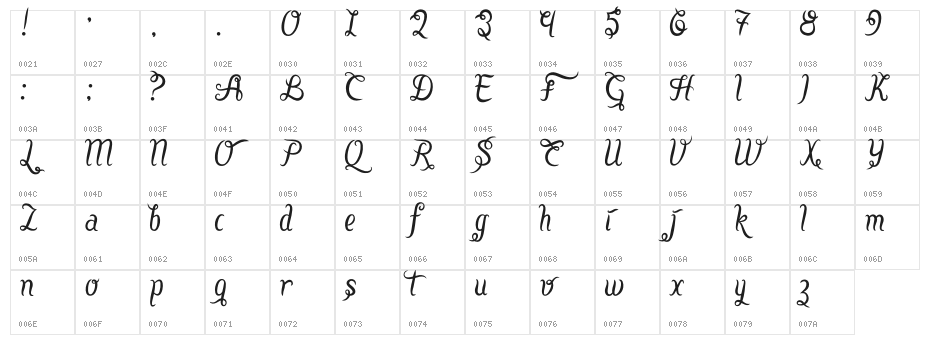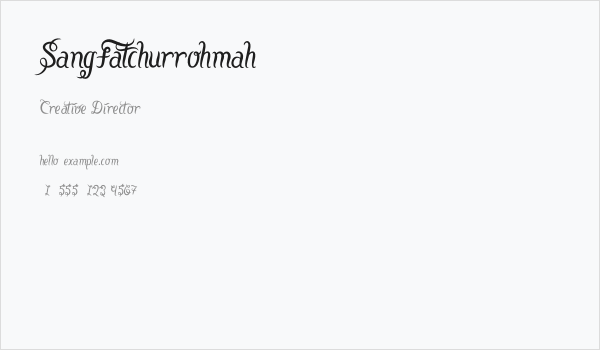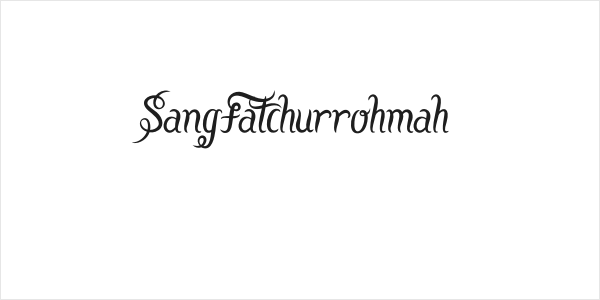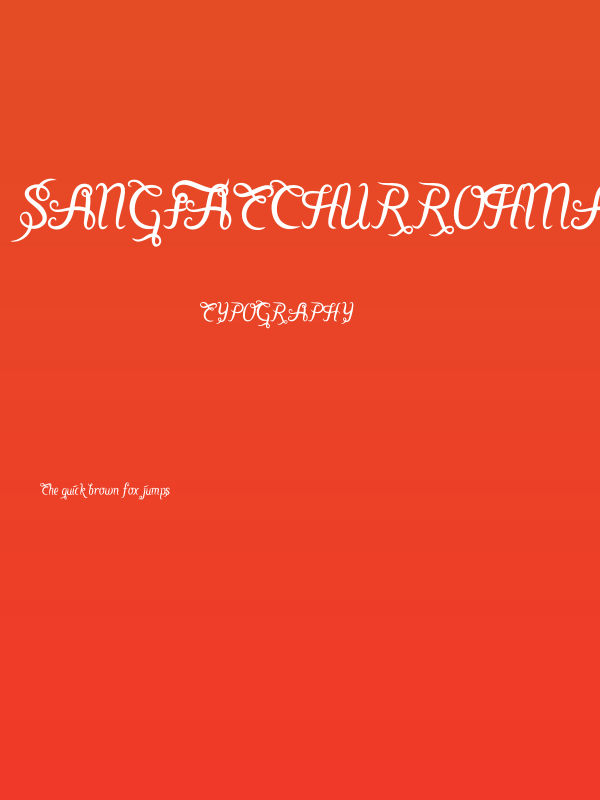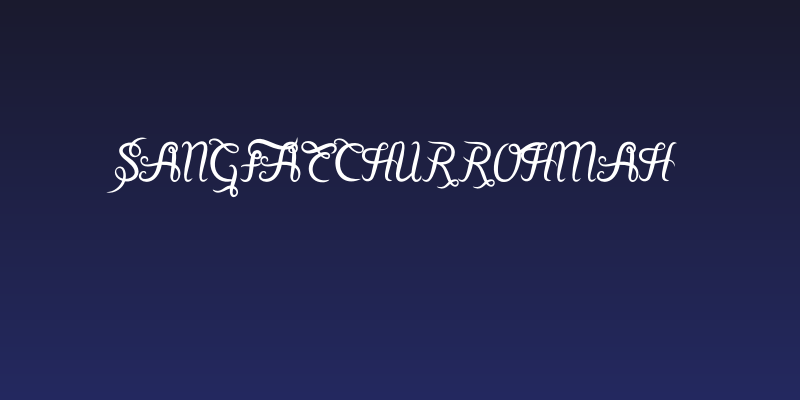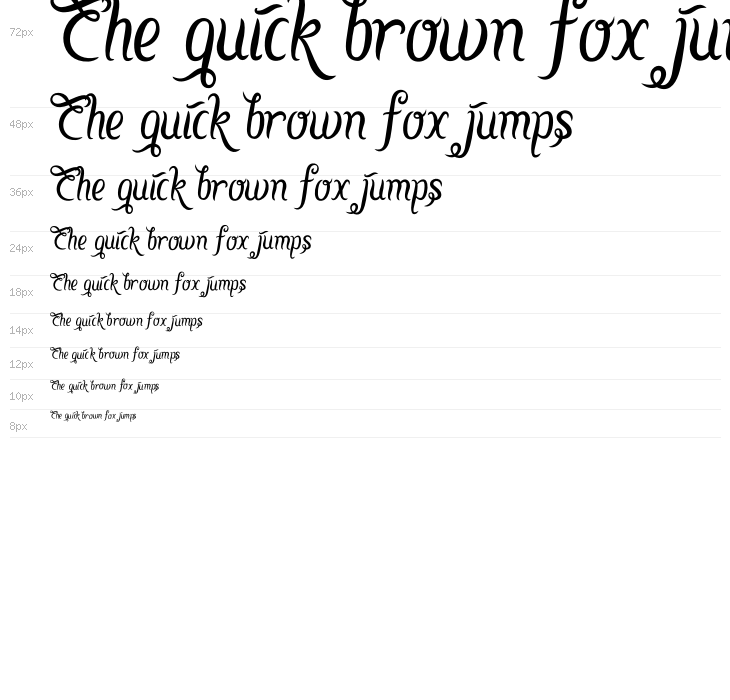
SangFatchurrohmah Font
SangFatchurrohmah Description
This font features an elegant and decorative script style, characterized by its flowing and intricate letterforms. Each character is adorned with elaborate swashes and curls, giving it a sophisticated and artistic appearance. The uppercase letters are particularly ornate, with extended loops and flourishes that add a sense of grandeur. The lowercase letters maintain a consistent style, with smooth curves and a slightly condensed form. The numerals are equally decorative, matching the overall aesthetic of the alphabet. This font is ideal for projects that require a touch of elegance and creativity, such as invitations, branding, and artistic designs.
Use CaseLogos, Headlines, Invitations
Proposed ProjectsIdeal for wedding invitations, luxury branding, artistic designs, and decorative headlines.